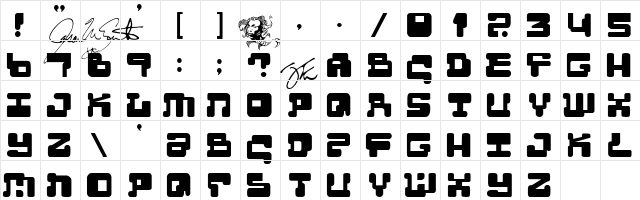
MoultiPass2 Normal
Design Context for MoultiPass2 Typeface
MoultiPass2 is a composed and adaptable typeface that performs quietly and consistently across a wide range of design contexts.